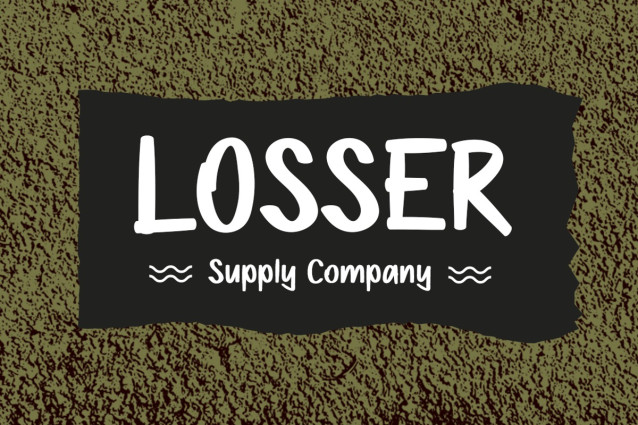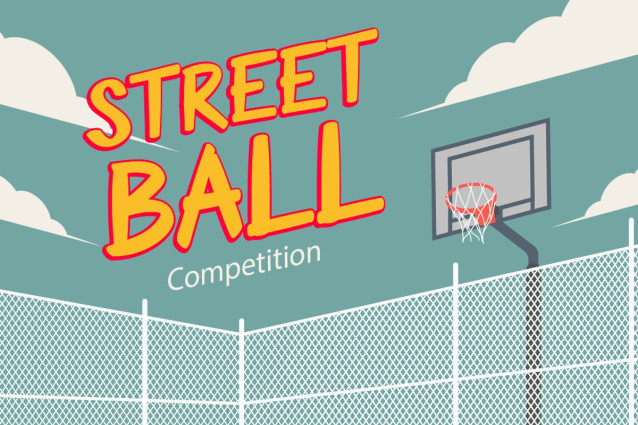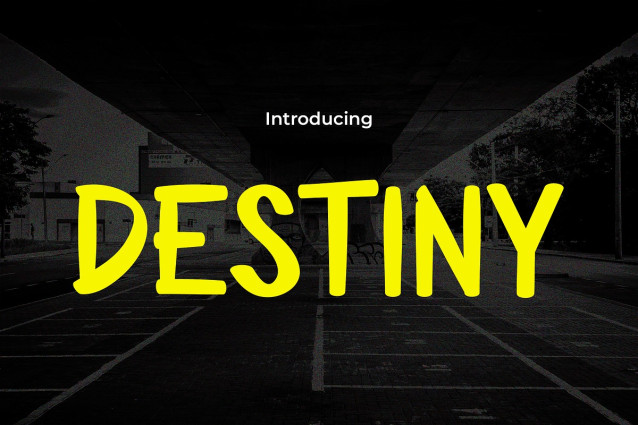
Destiny Font
Destiny Font is an electrifying font that brings graffiti’s raw, expressive energy into a modern urban context. It embodies the rebellious spirit of street art, making it a standout choice for designs that require an edgy, contemporary feel. Destiny adds a bold and unapologetic character in logos, perfect for brands that want to make a strong statement. Its street art style infuses quotes with a sense of authenticity and urban edge, resonating with a young, dynamic audience. This font sets a trendy and unique tone for invitations, ideal for events that aim to be memorable and distinctive. In posters and greetings, Destiny conveys messages with an impactful and vibrant flair, capturing the essence of modern urban culture in every letter.
Destiny offers a distinctive and eye-catching identity when applied to packaging and branding, appealing directly to viewers who appreciate a blend of modern design and street-style authenticity. For book covers, event promotions, headlines, and advertising, Destiny ensures your message is seen and experienced, encapsulating the spirit of urban creativity and modern aesthetics.